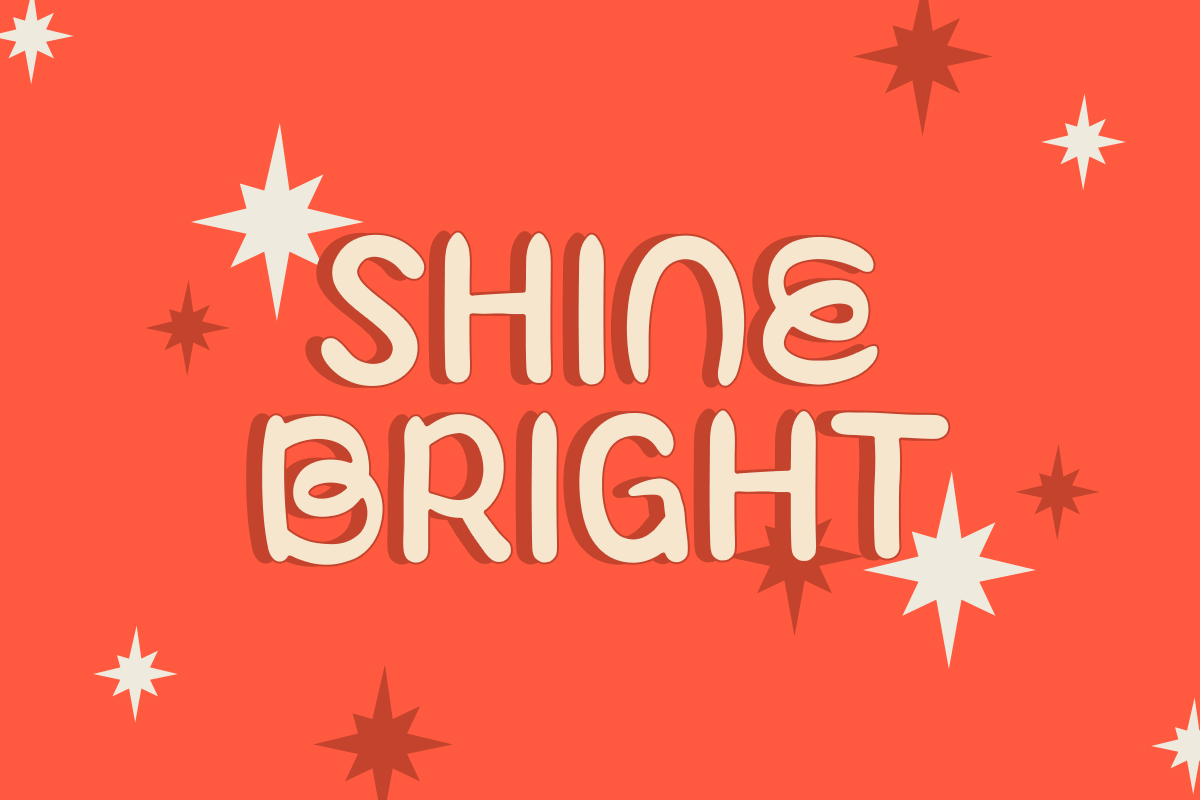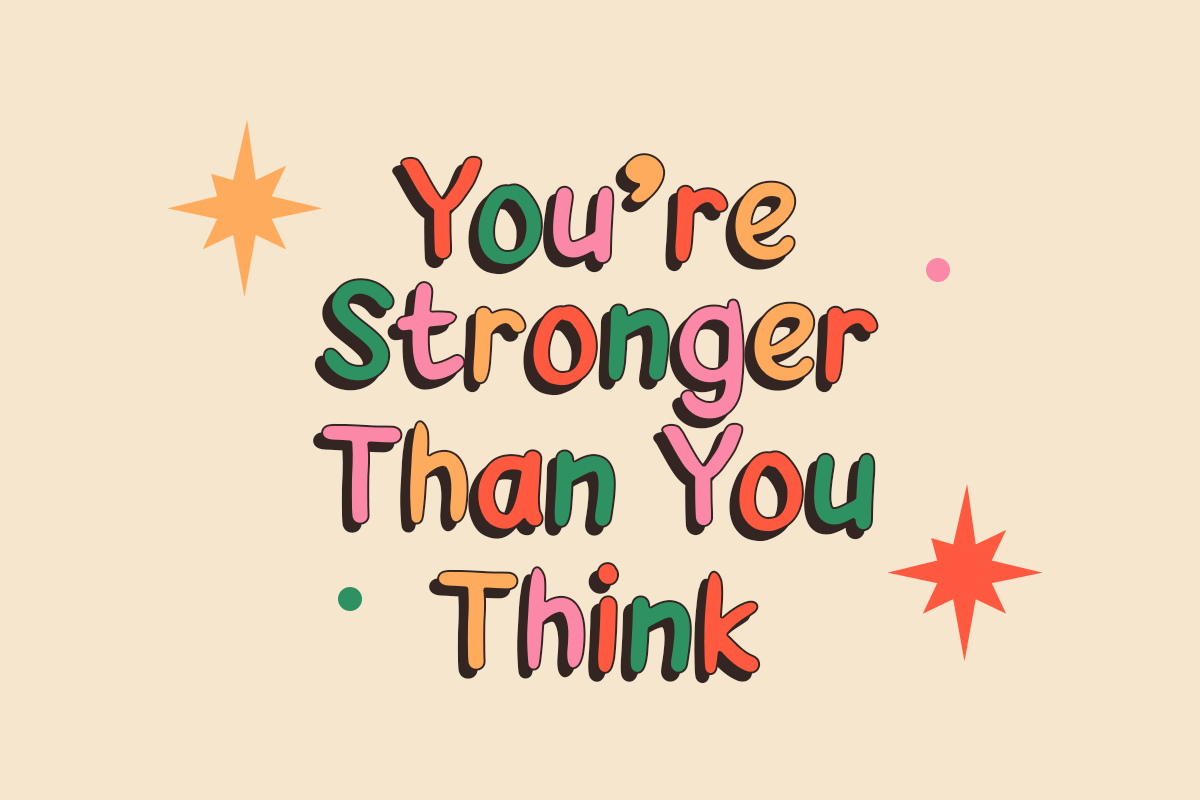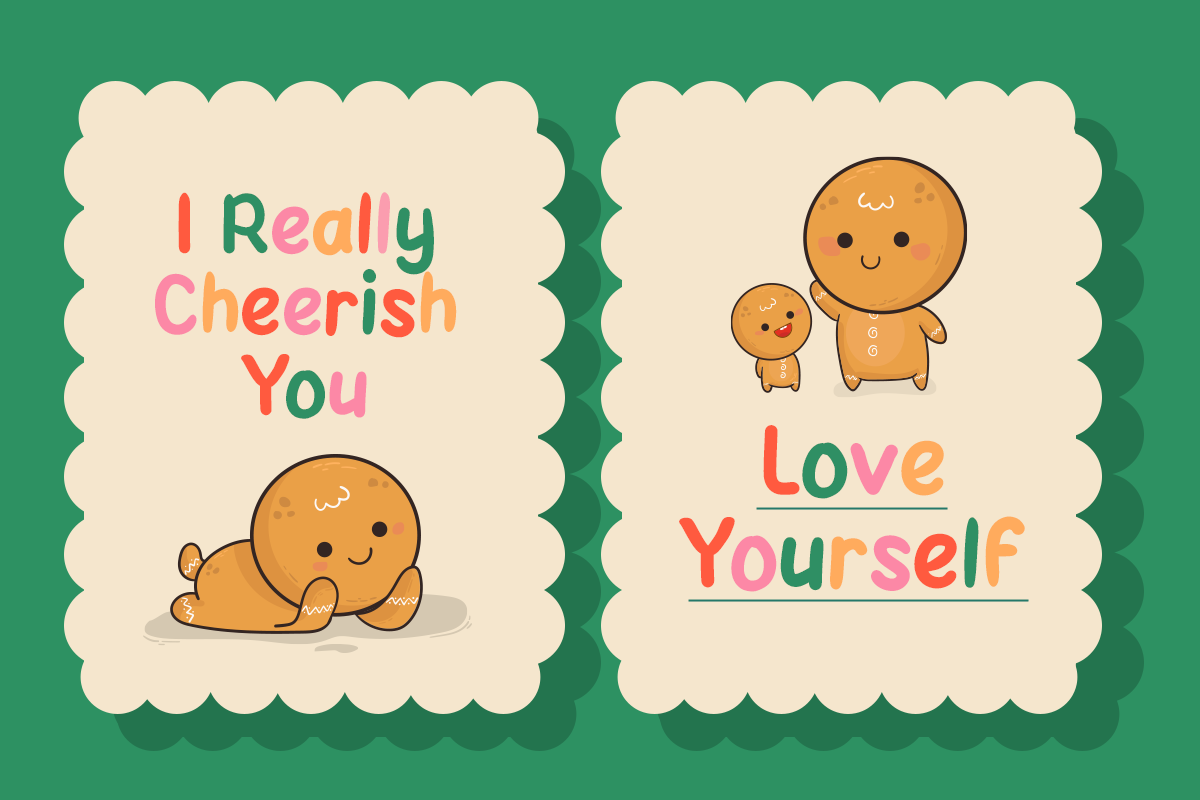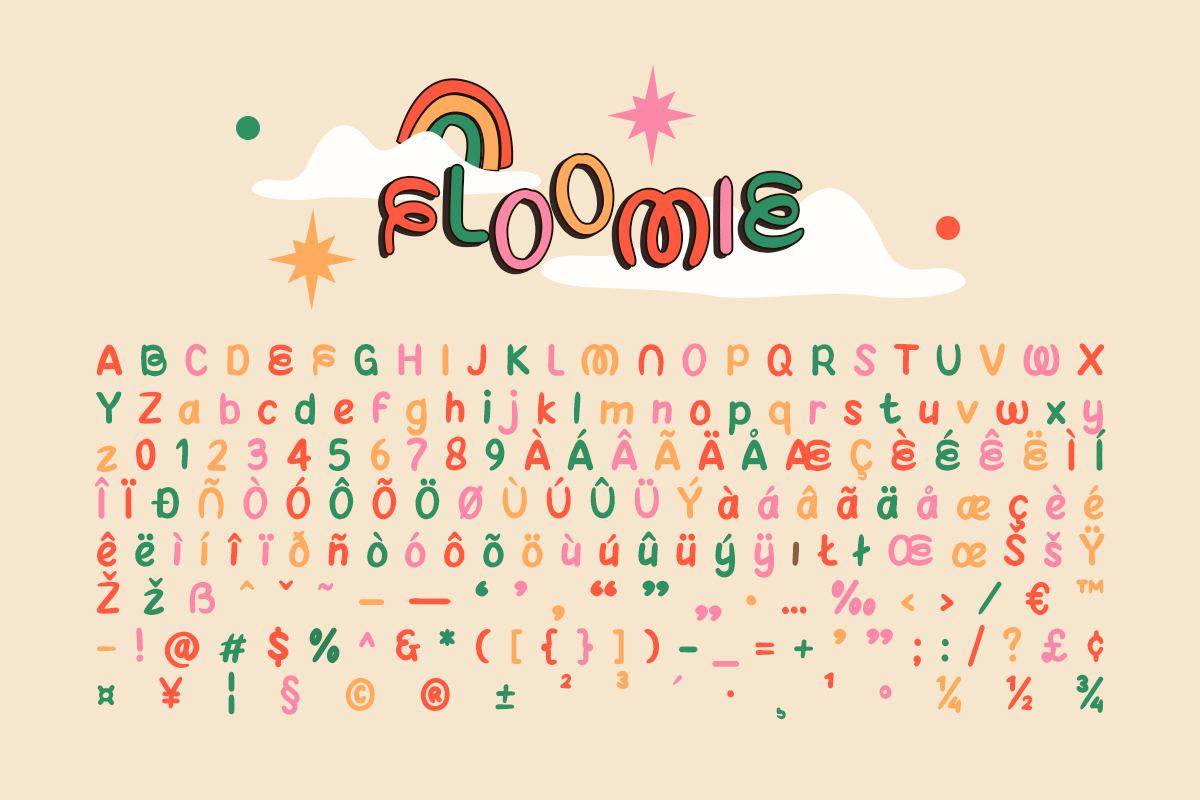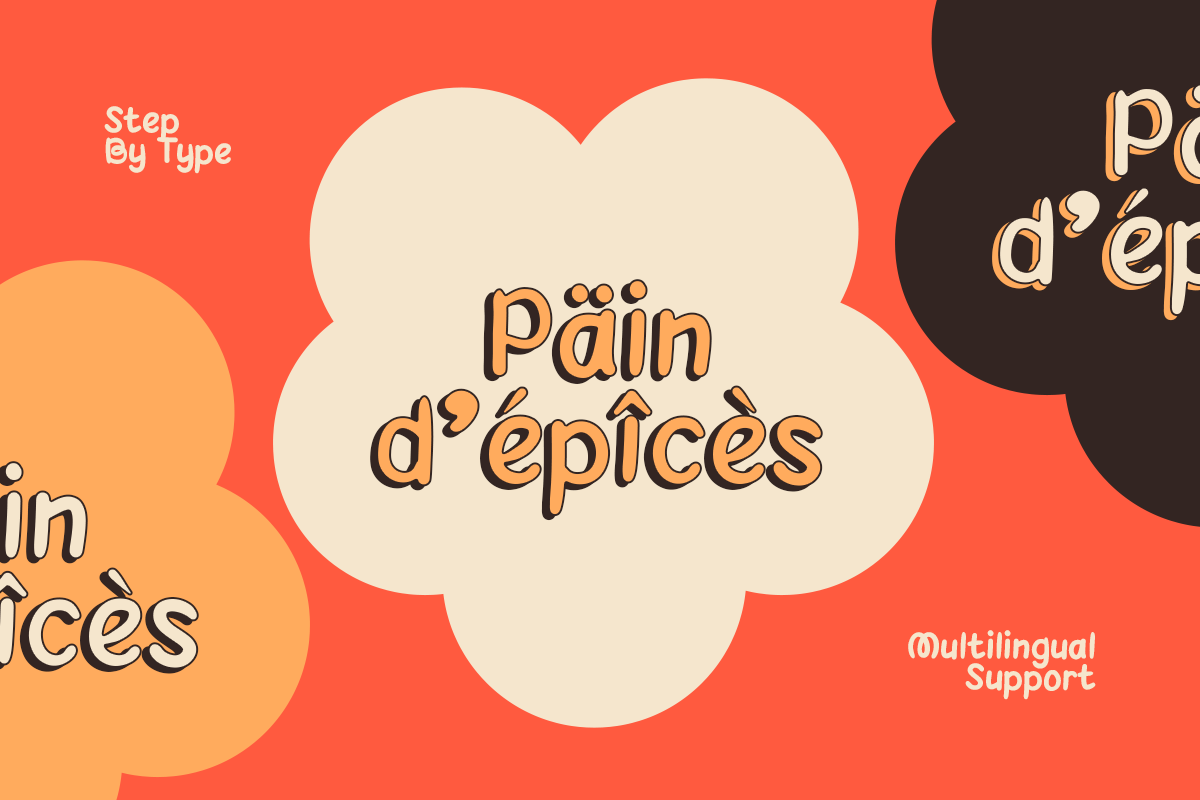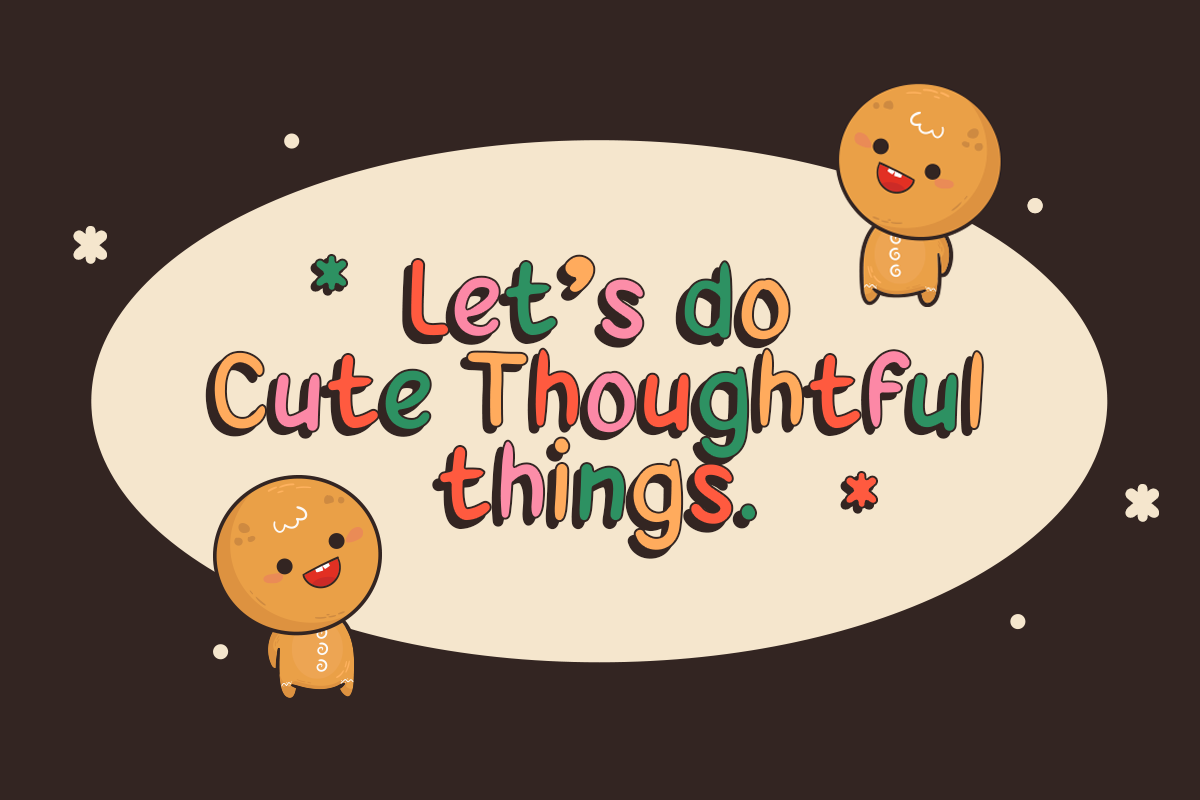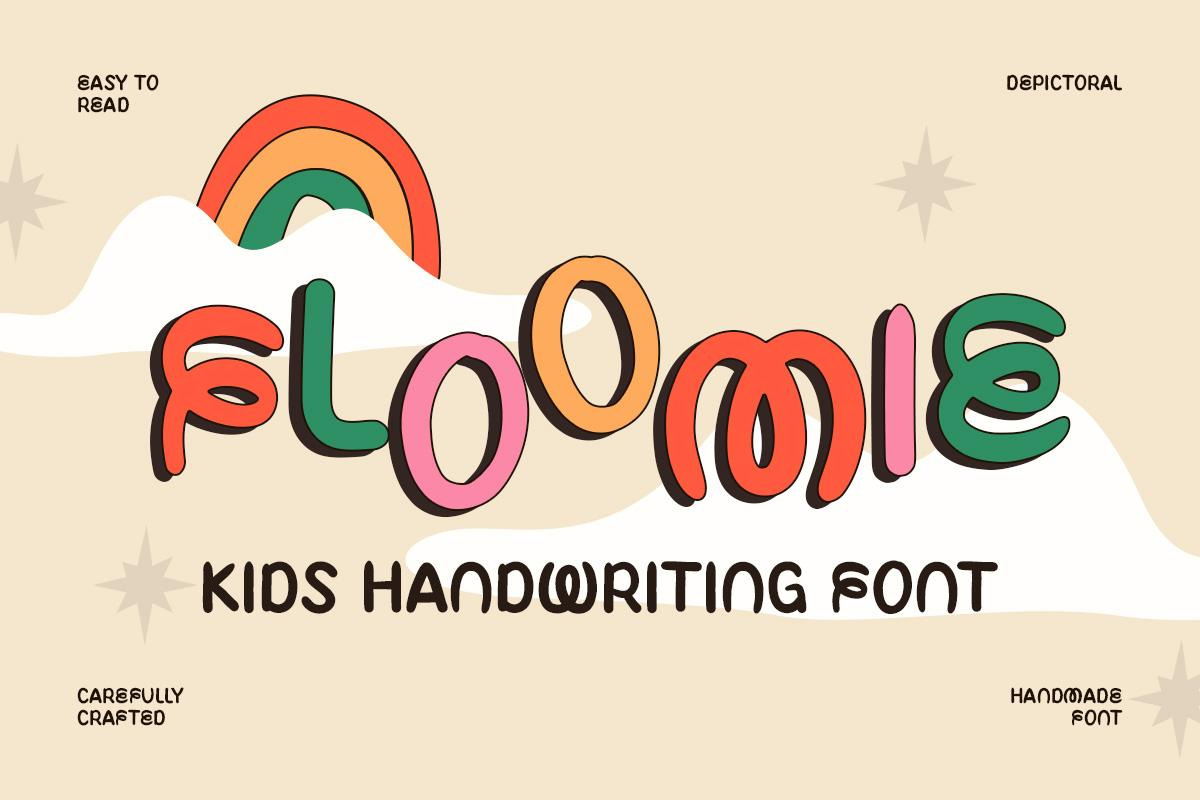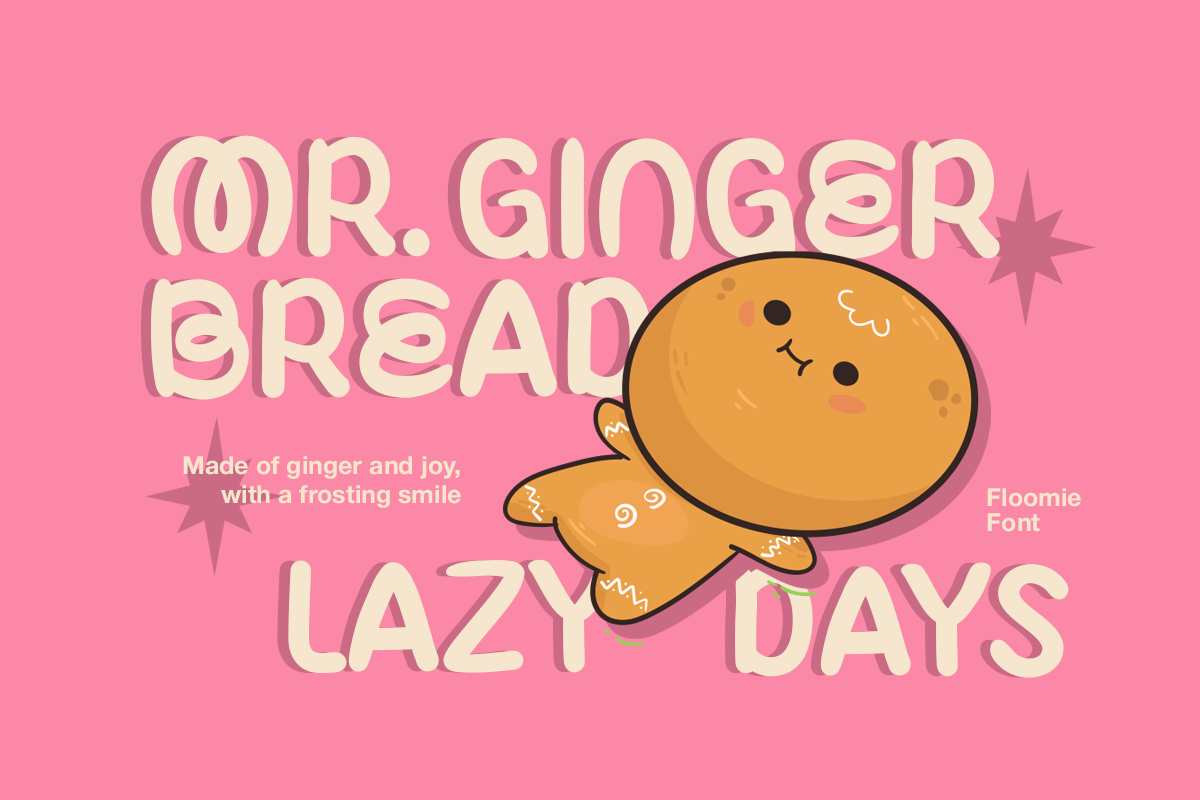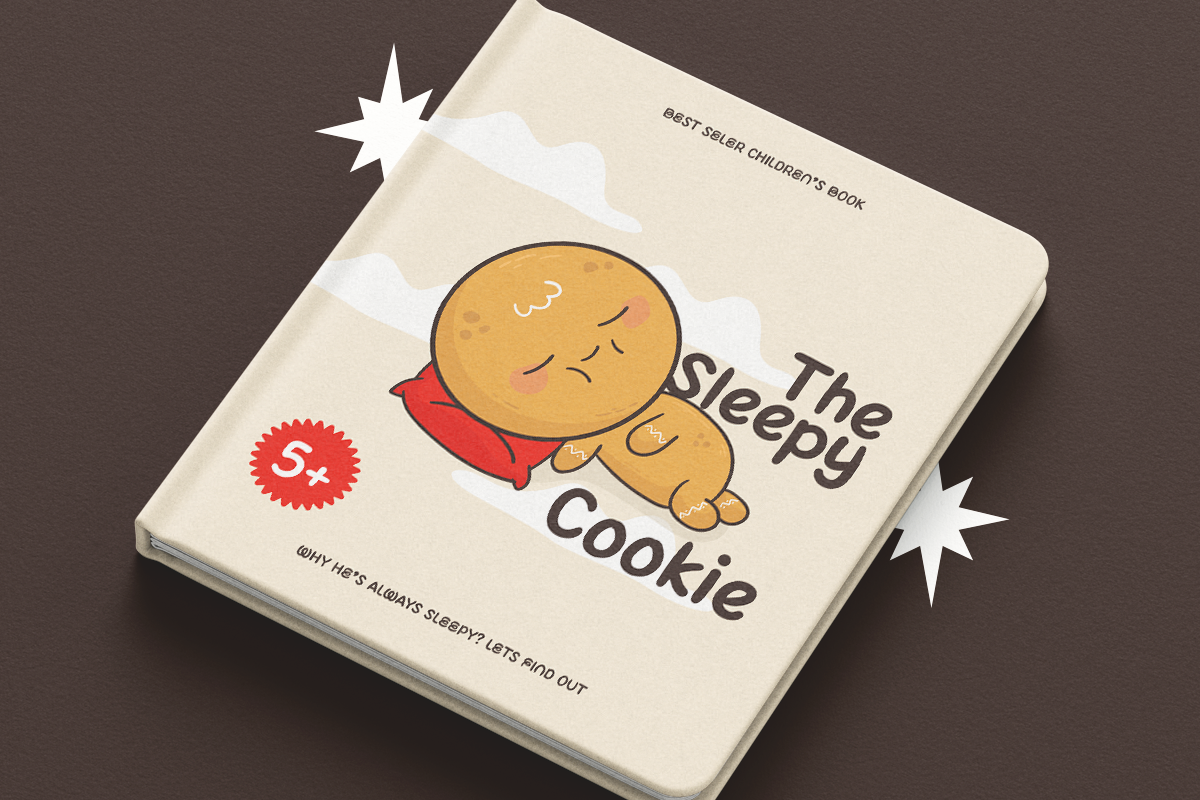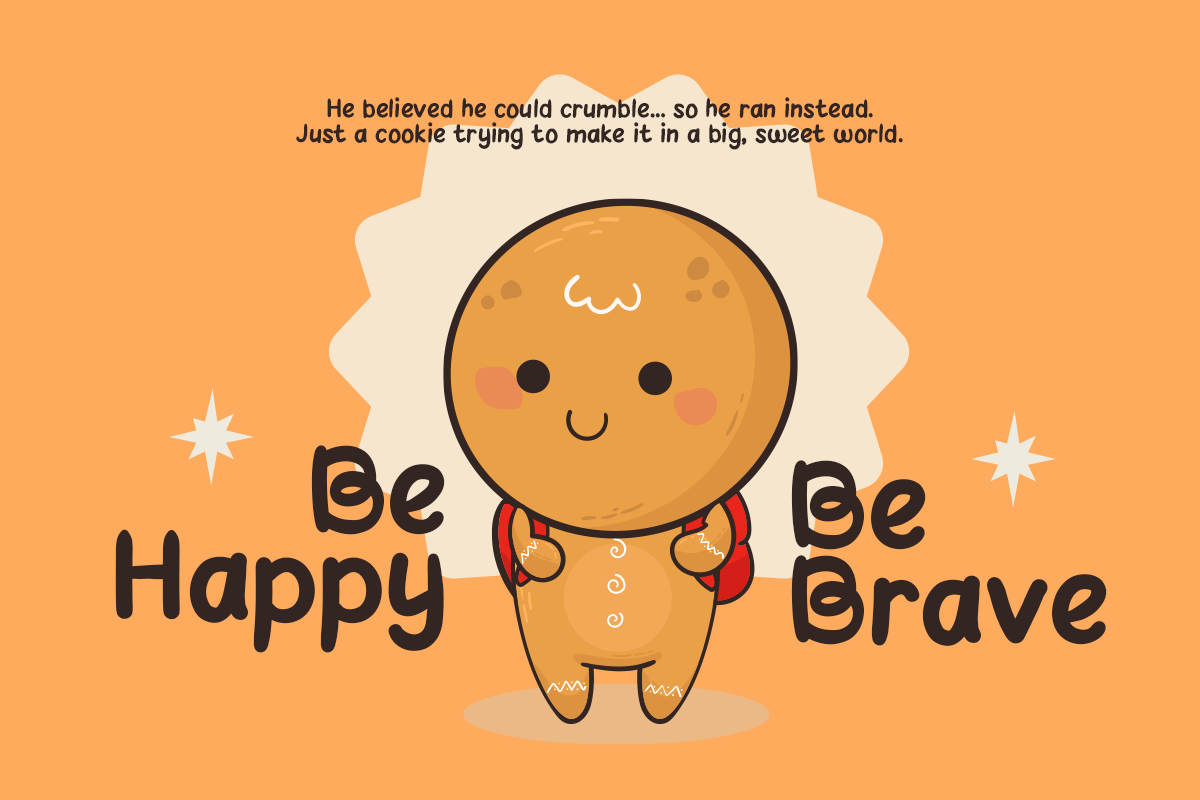
Floomie – Kids Handwriting Font
Floomie is a kids handwriting font that captures the warmth and wonder of childhood. Its playful, hand-drawn letterforms add an authentic, joyful touch to any project—perfect for designs needing heart and creativity.
Style & Energy
- Lighthearted, imaginative, and full of character
- Radiates the carefree spirit of early childhood
- Adds a personal, heartfelt feel
Target Market & Uses
- Children’s books, school worksheets, birthday invites
- Instagram posts, Etsy packaging, YouTube thumbnails
- Educational materials, parenting blogs, classroom décor
Letterform Features
- Rounded, bouncy, and naturally imperfect
- Handcrafted with subtle irregularities
- Looks like real kids’ handwriting
Best For
- Kids product branding and packaging
- Educational printables and social media
- DIY crafts, greeting cards, scrapbooking
- Posters, classroom banners, teaching resources
Why Choose Floomie?
- ✨ Kid-friendly with natural handwriting flow
- ✨ Soft, approachable, and playful vibe
- ✨ Handmade look that adds emotion
- ✨ Versatile for print and digital use
- ✨ Builds emotional brand connections